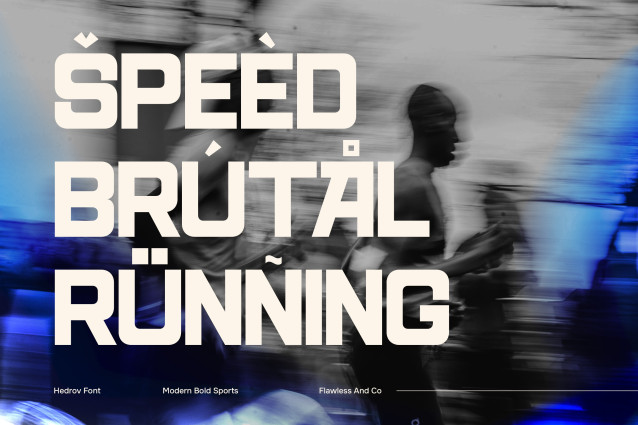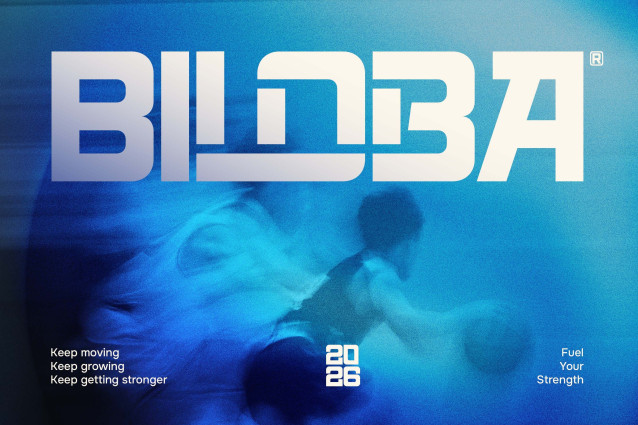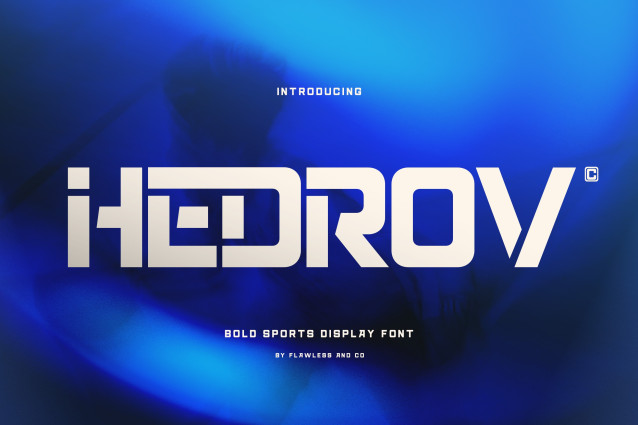
Hedrov – Bold Sports Display Font
Hedrov is a bold sports display font designed to bring a powerful, dynamic, and competitive character to your designs. Featuring strong geometric shapes, sharp angles, and distinctive letterforms, Hedrov creates an energetic visual impact that immediately grabs attention.
With its bold and futuristic appearance, Hedrov is made to communicate speed, strength, and confidence. Its solid construction and unique details give every word a strong presence, making it especially effective for headlines, logos, team identities, and other high-impact designs.